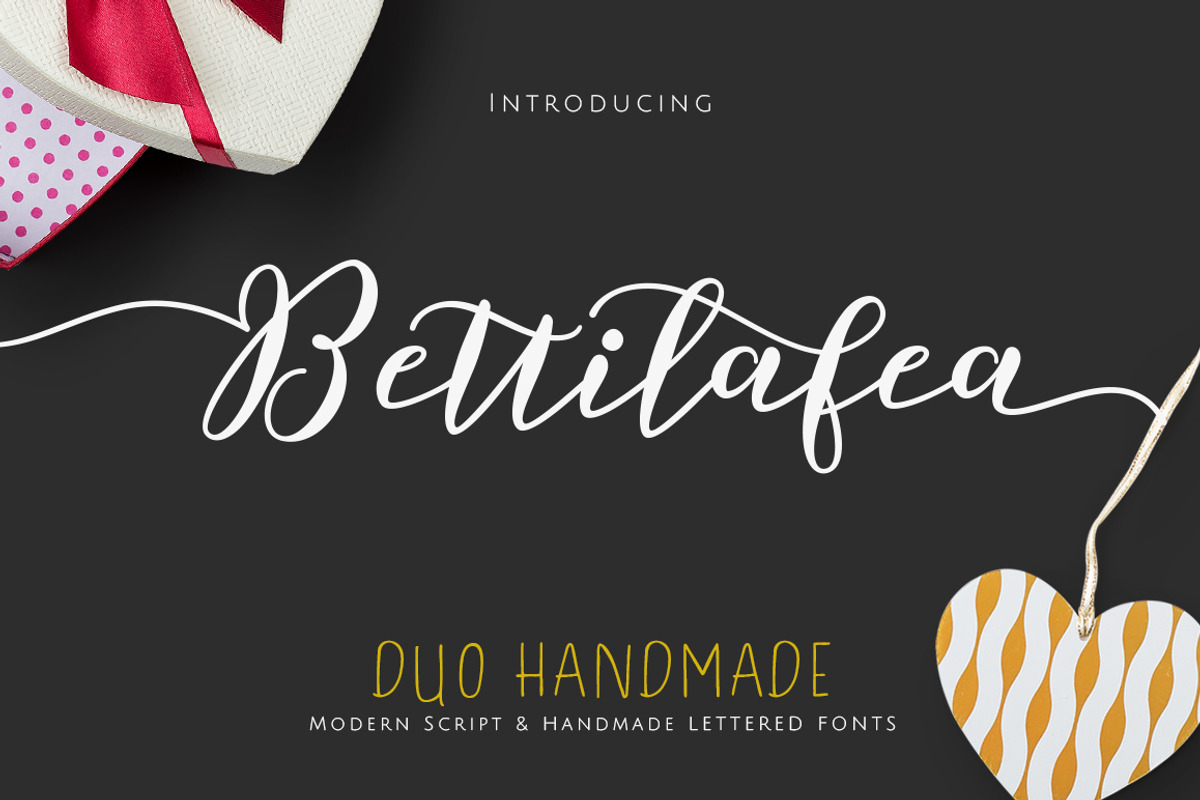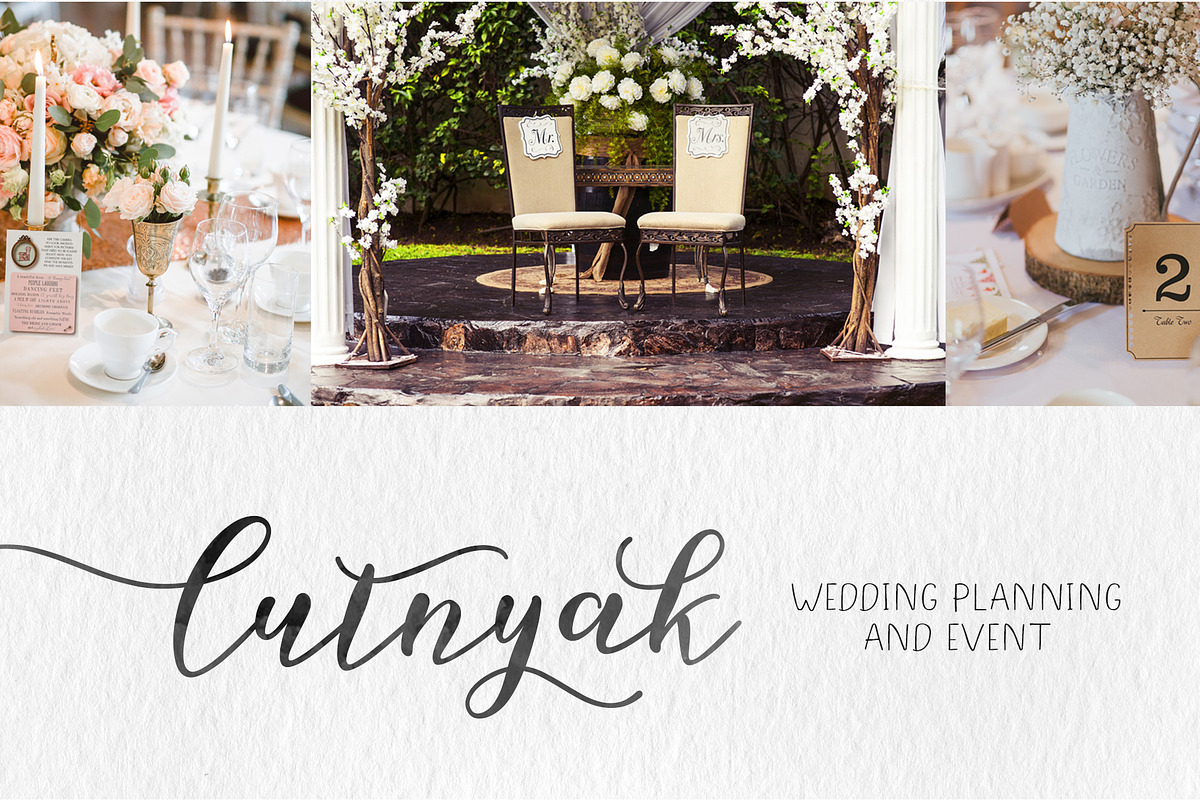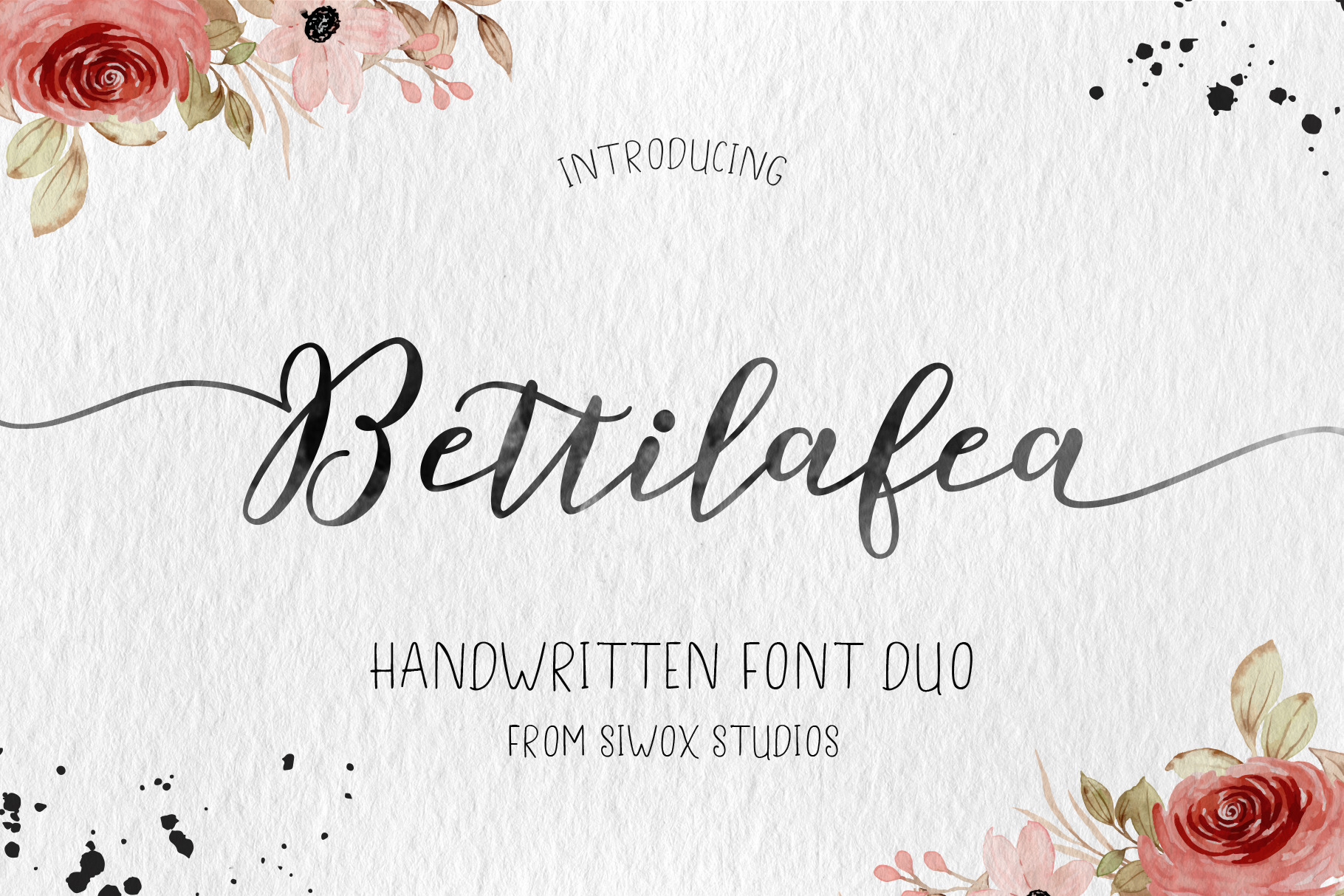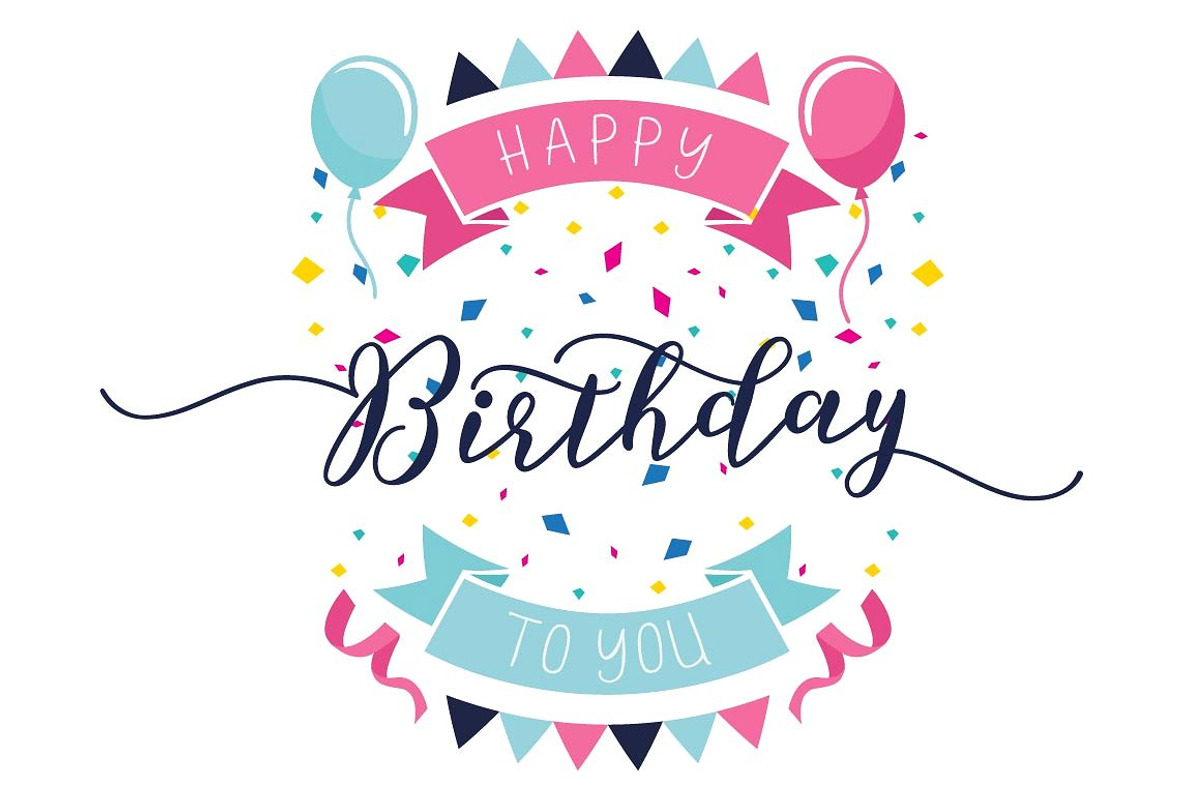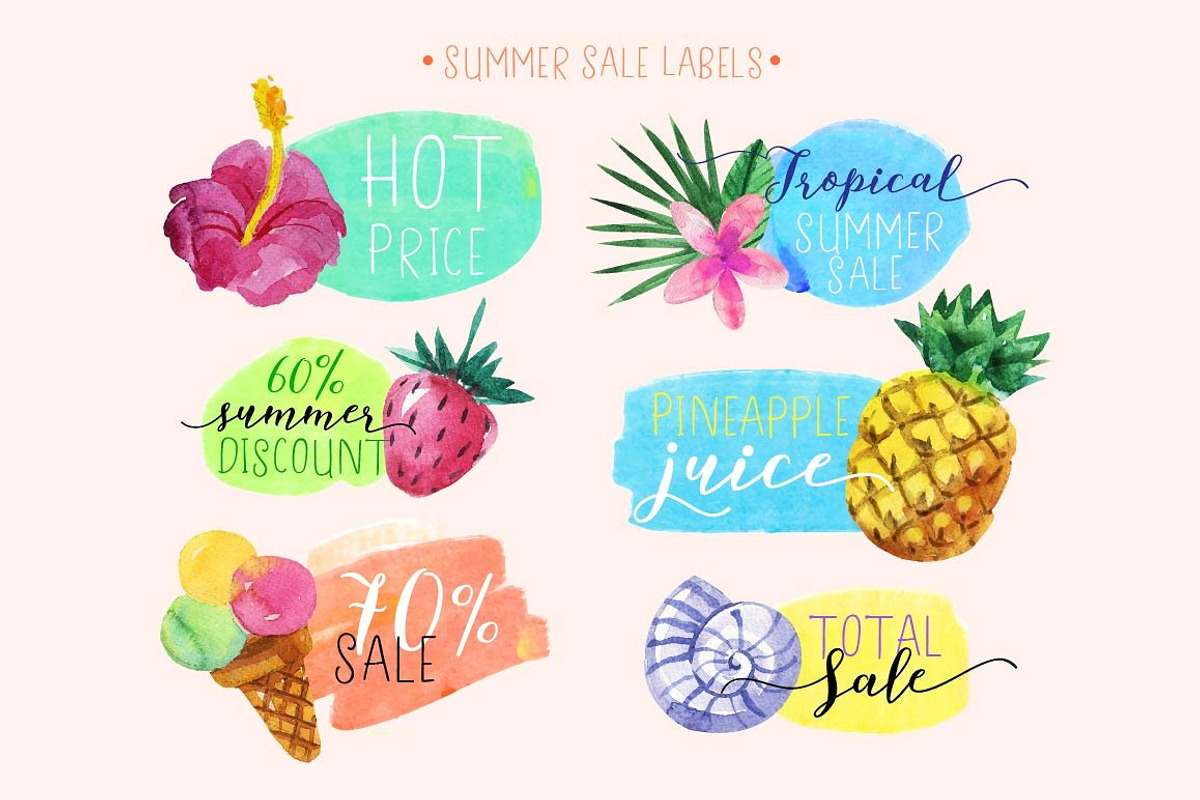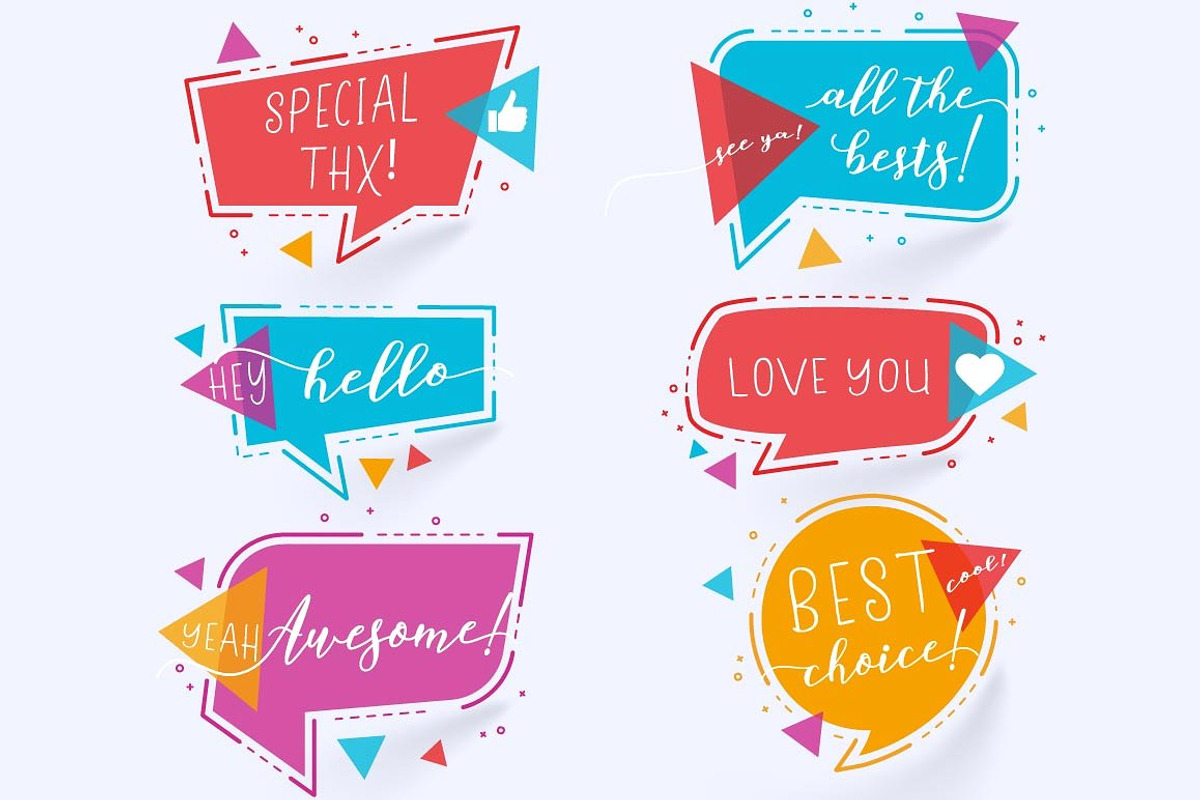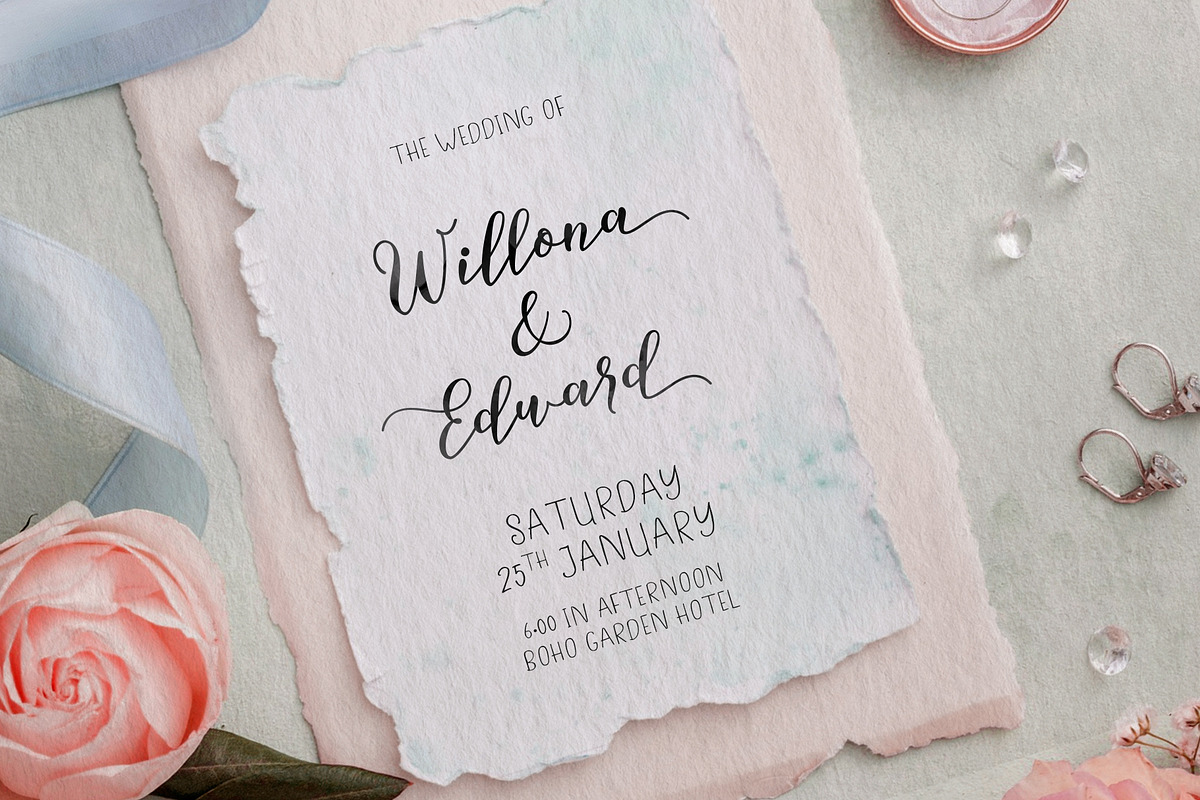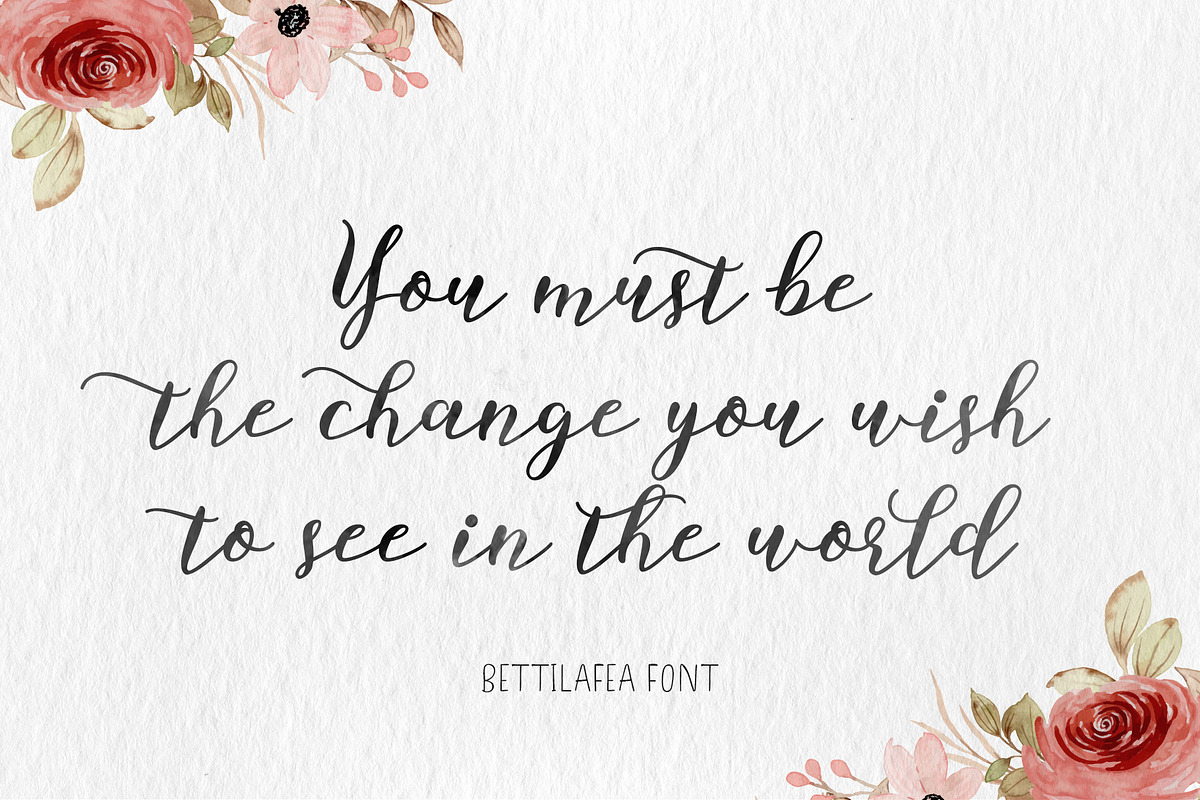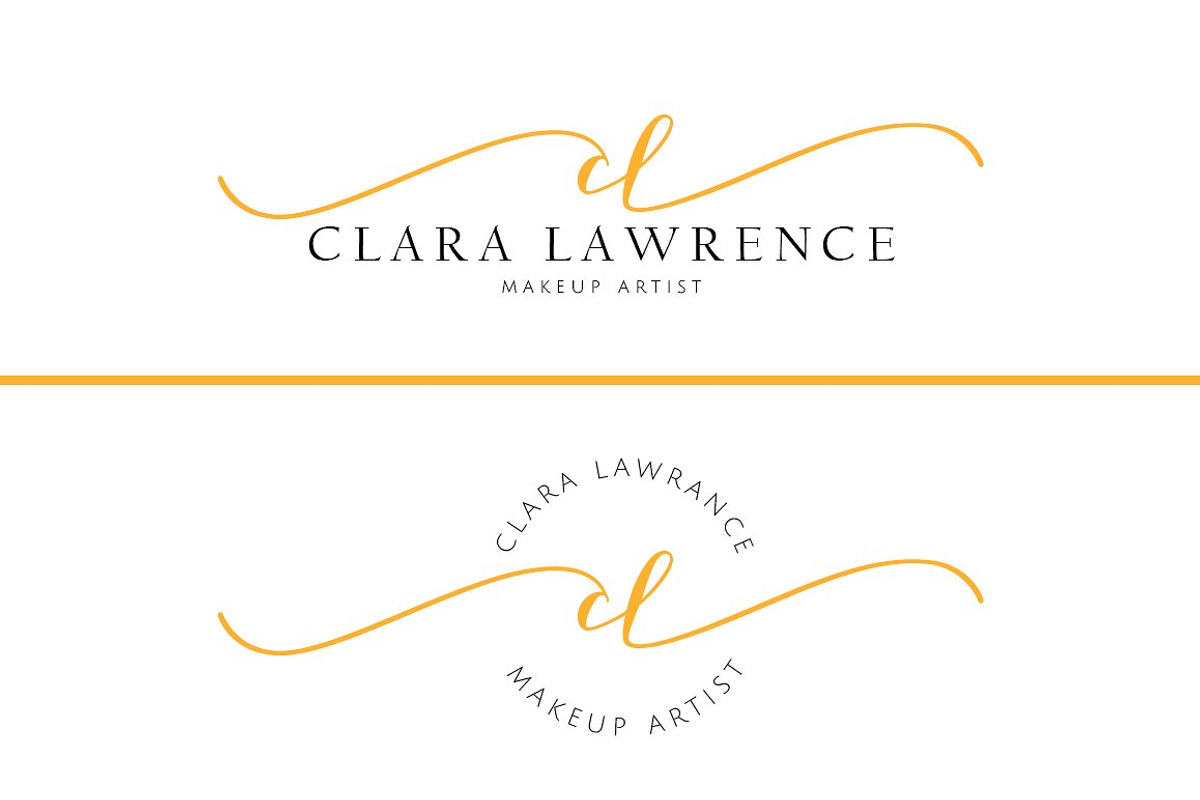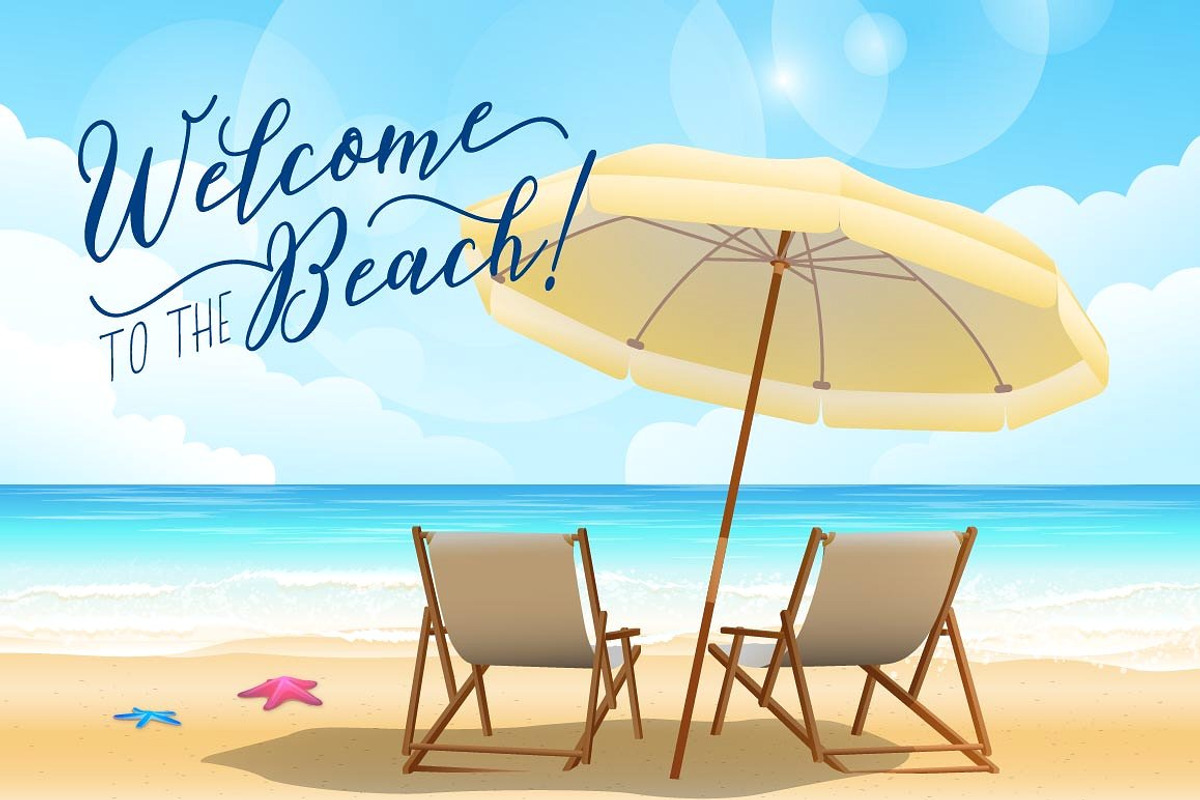
Bettilafea Duo Handmade Fonts
Duo Bettilafea Script.
Bettilafea is a handwritten font duo, this font very easy to use and really playful. You can explore to create a combination that would have been nice.
Come with modern typeface, handmade style and clean. Bettilafea Script, including swashes, ligatures, Alternate and International support for most Western Languages is included. Bettilafea Script come with 549 glyphs
This one should make your designs instantly professional and jaw-dropping! Be a perfect professional in a minute and start creating modern designs like ads promotion, logos, branding, posters, social media, lyrics, text on video, wedding cards, invitation cards, quotes, etc.